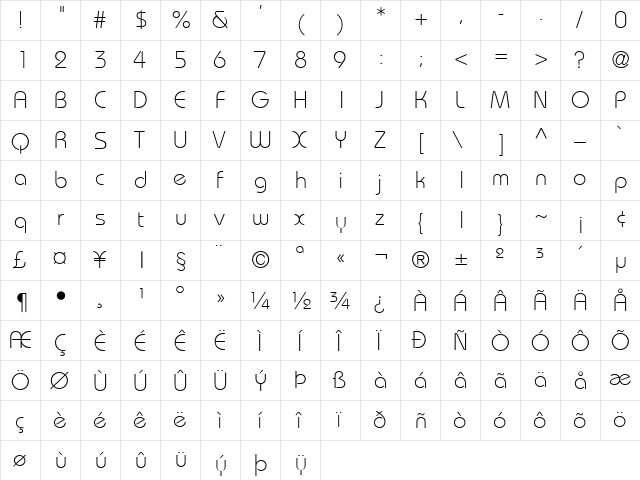
BahamasLight Regular
Design Context for BahamasLight Typeface
BahamasLight is a composed and adaptable typeface that performs quietly and consistently across a wide range of design contexts. The delicate stroke weight brings airiness and refinement to layouts.